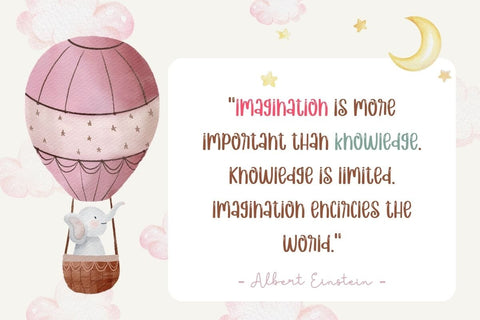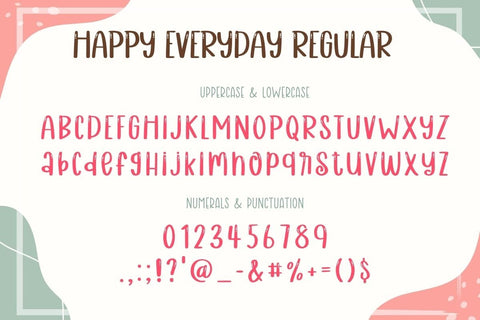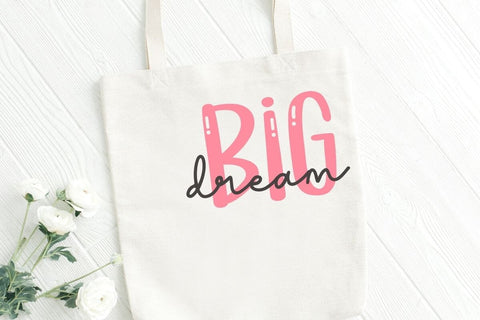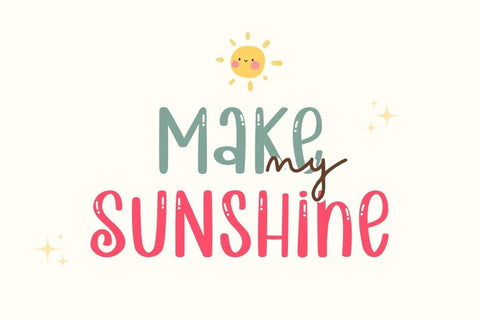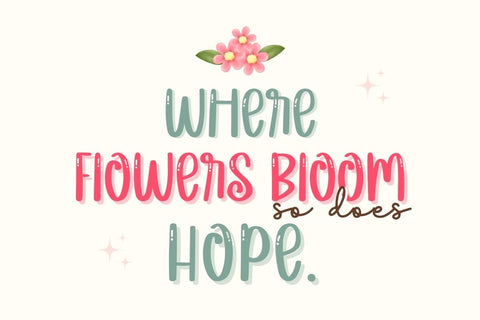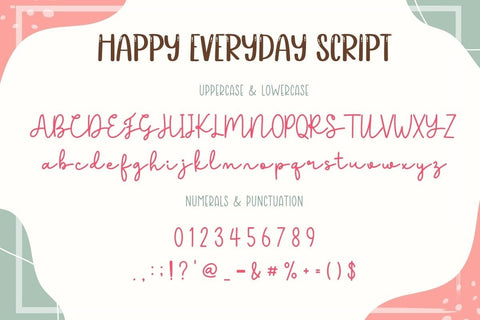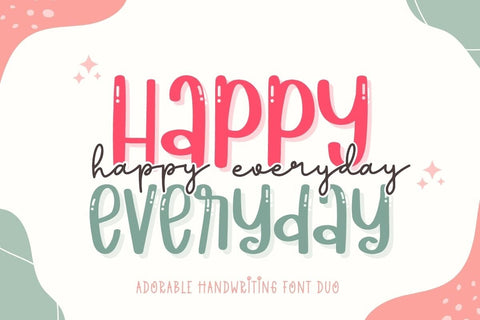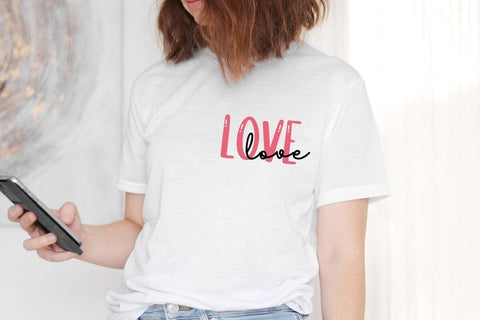
Happy Everyday Font Duo
Happy Everyday is a cute handwritten font duo (sans and script). Masterfully designed to become a true favorite, this font has the potential to bring each of your creative ideas to the highest level! Perfect for creating a wide variety of new designs to match products such as banners, content, mugs, cards, shirts, stationery, social media posts, and more!